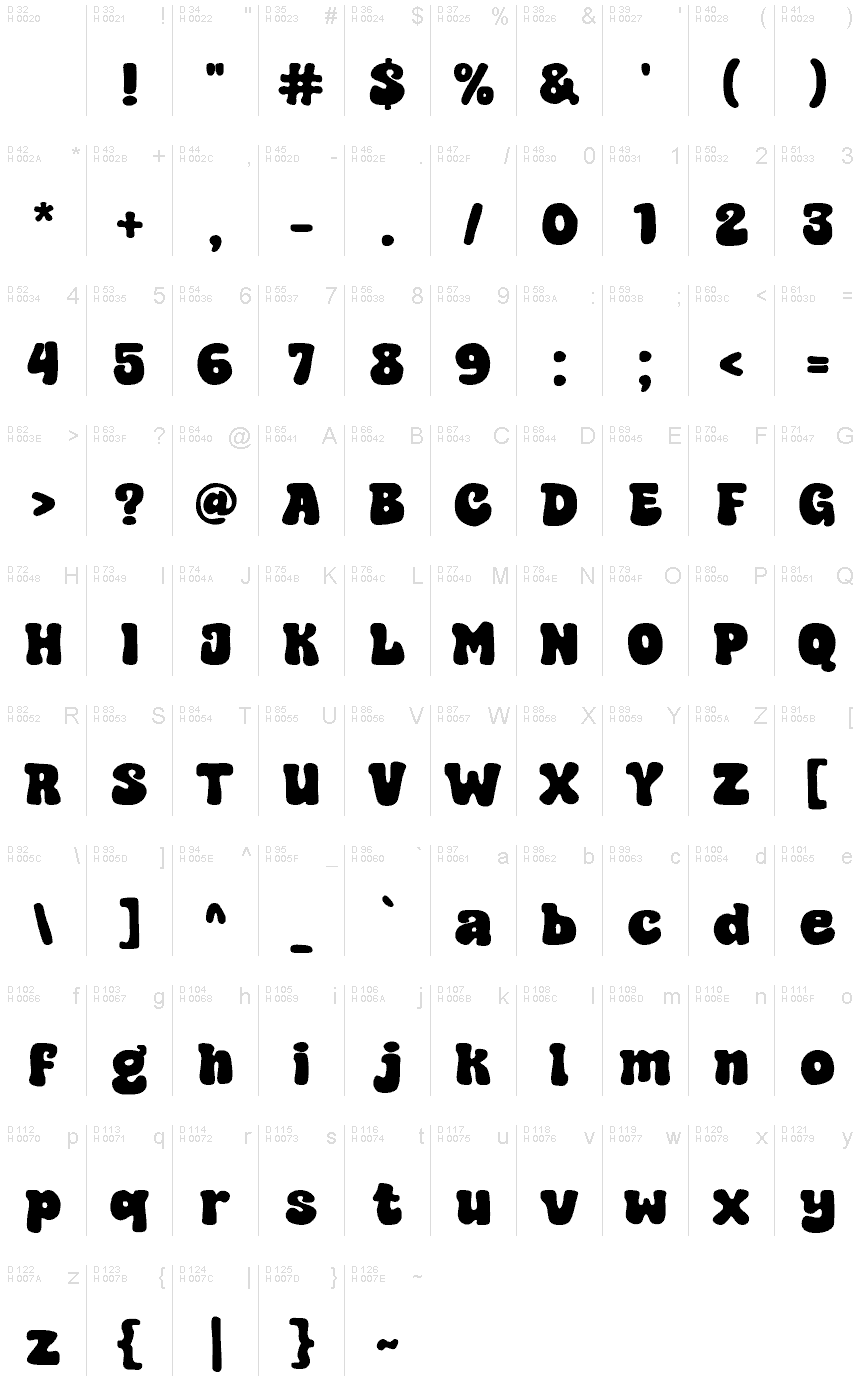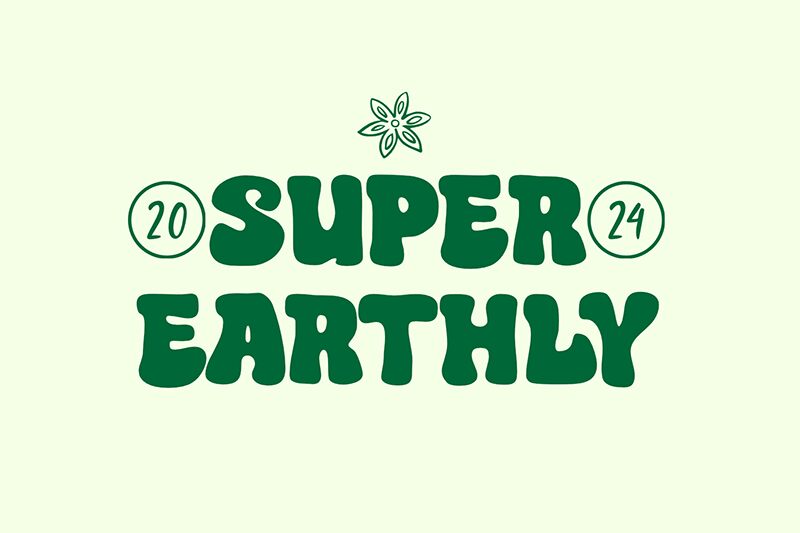
Super Earthly
Super Earthly font by fsuarez913 is a free display font with a cartoon-like style and bold appearance. It carries retro, unconventional, organic, whimsical, expressive, and vintage-inspired characteristics that make up its unique look. The letters are bulky and short with no constant straight lines, appearing puffy like balloons. All lines are secondary in importance to the curves which take whatever shape they need to complete the design.
The download package includes only alphabetical characters that can be used while crafting video game covers or product packaging designs. Restaurant menus are another excellent application area along with poster designs and logotypes.